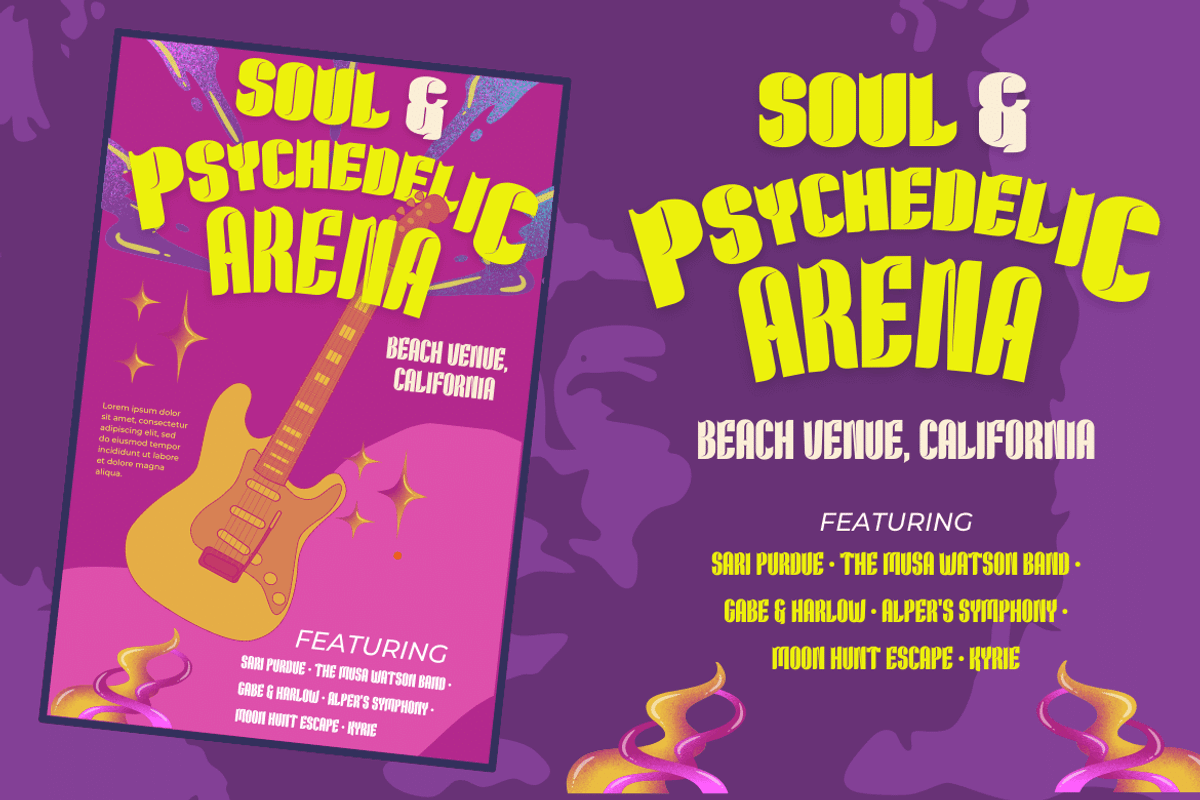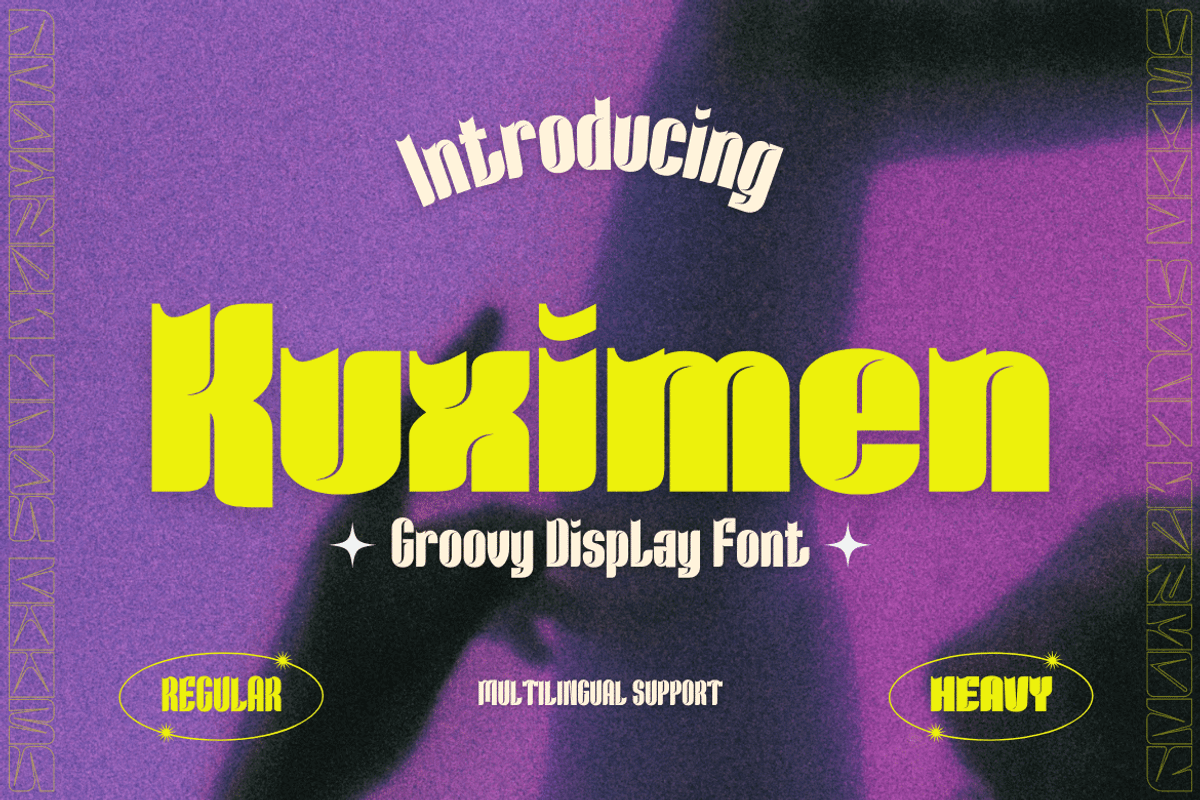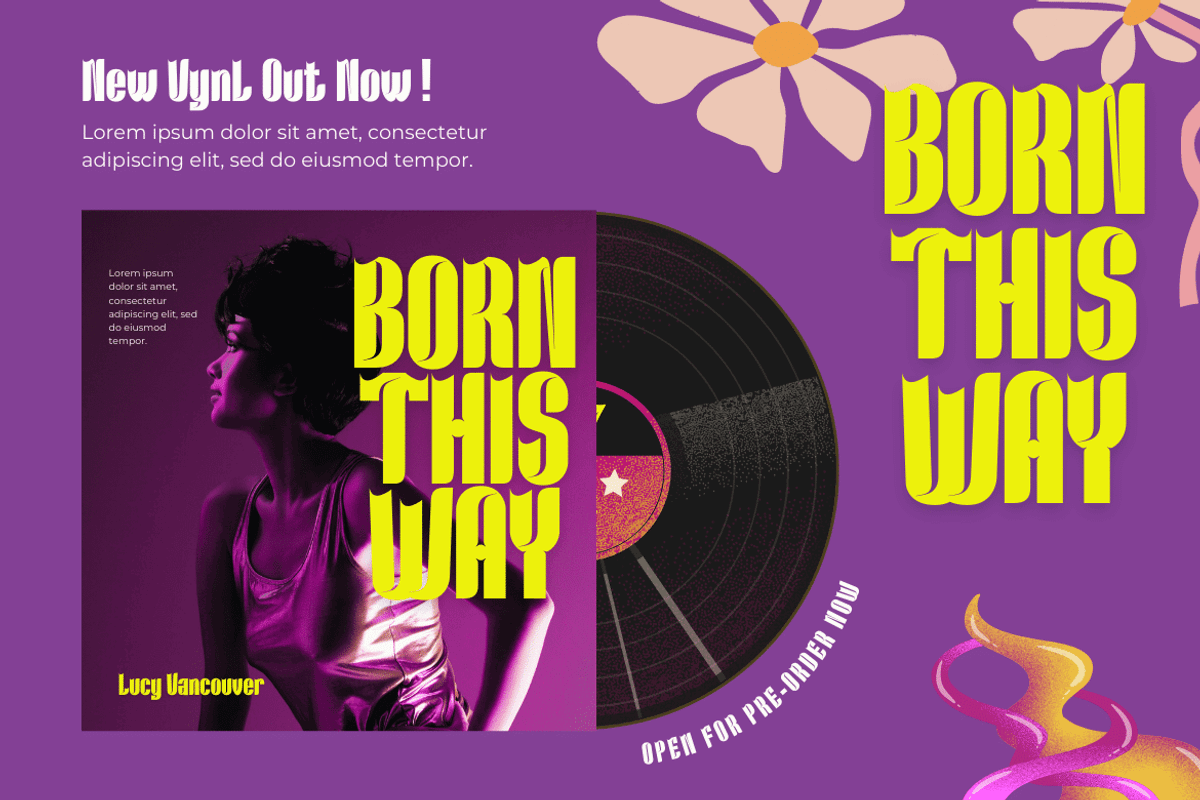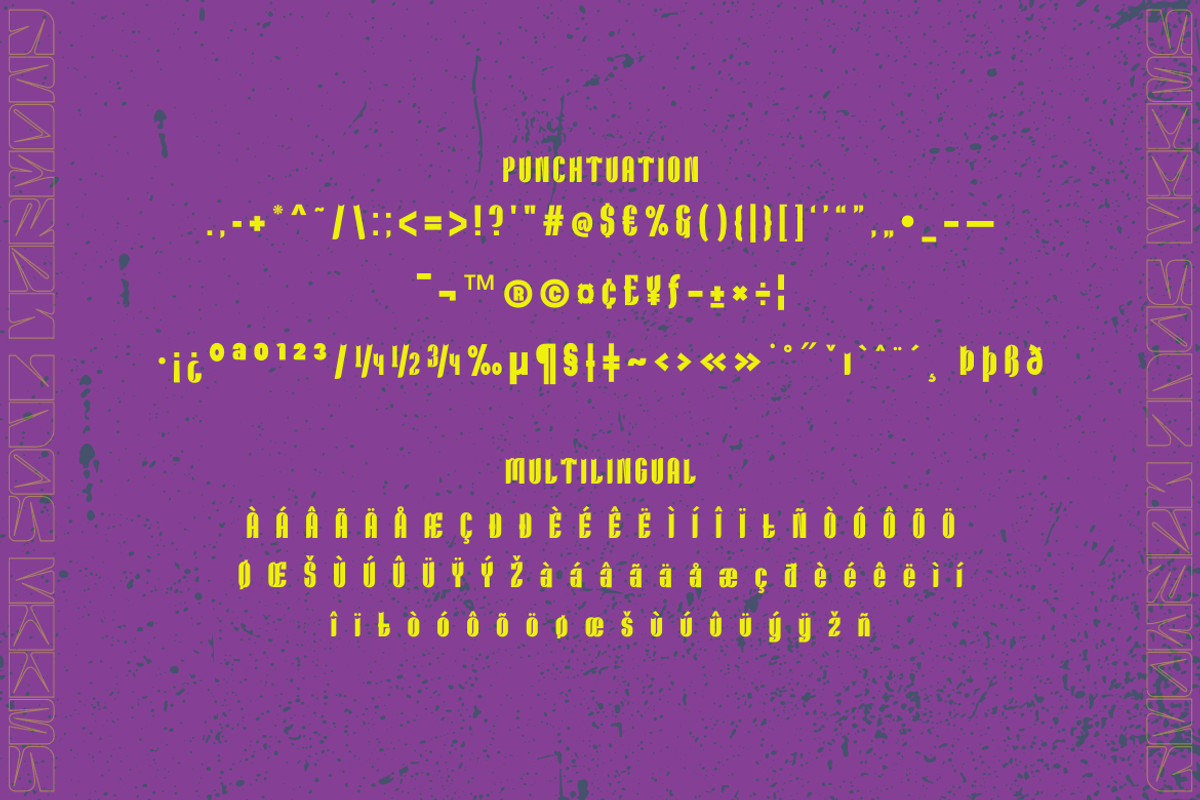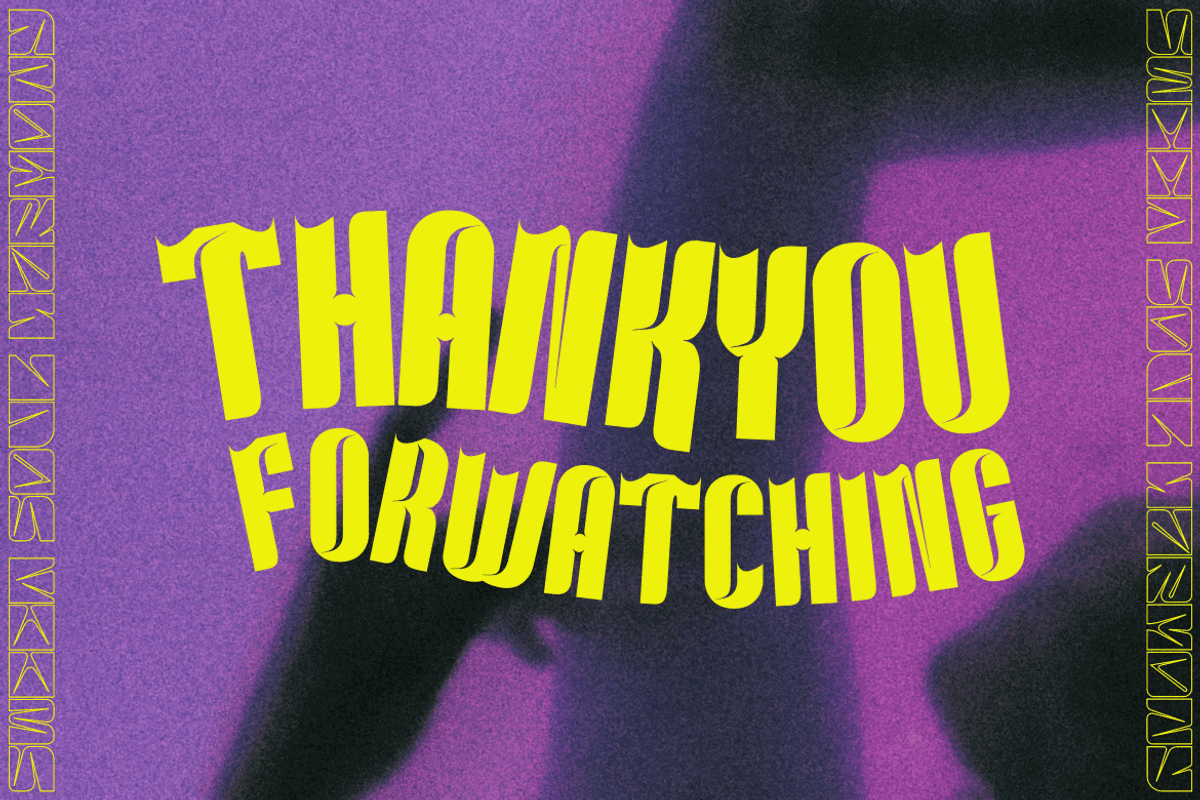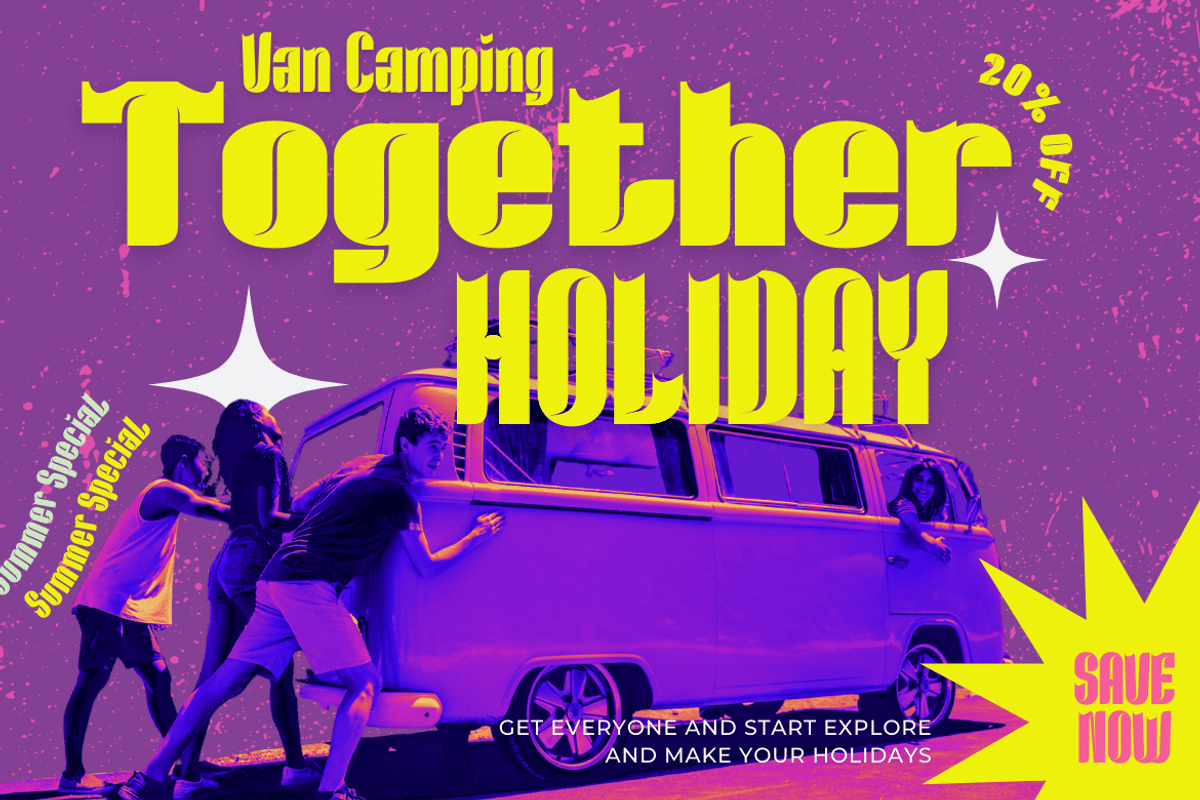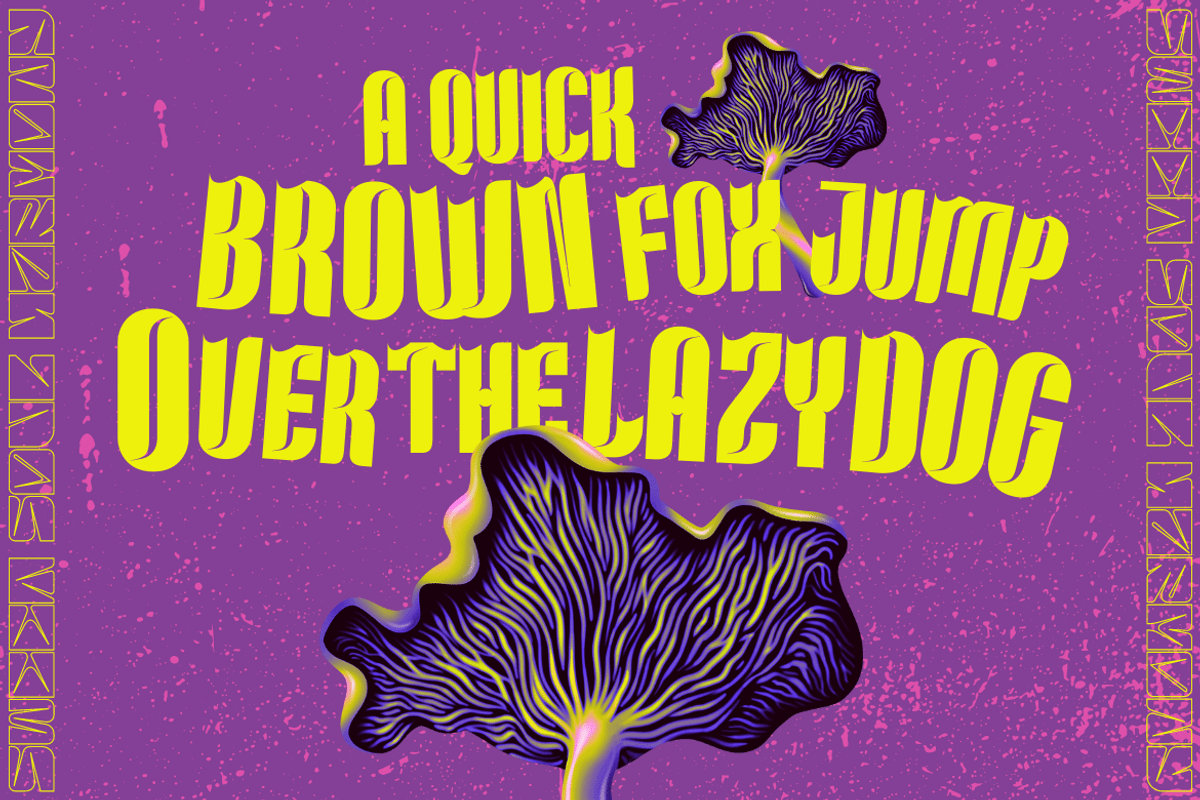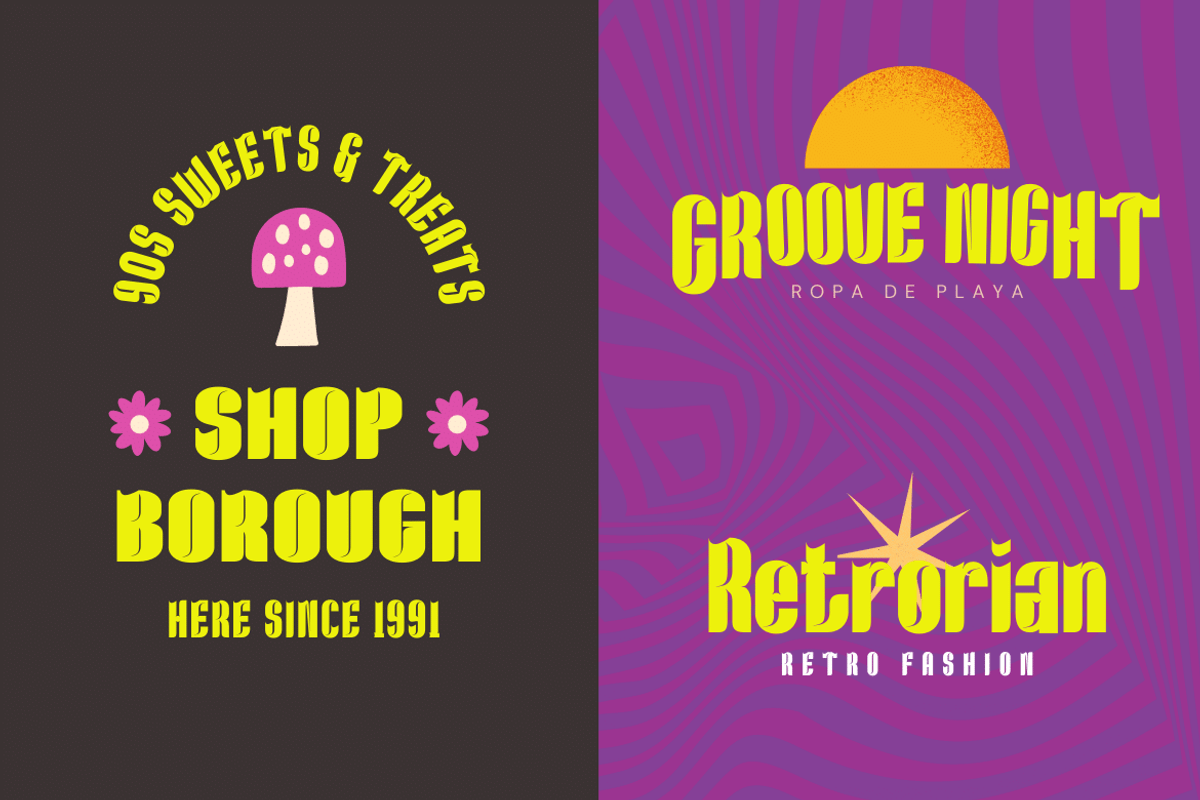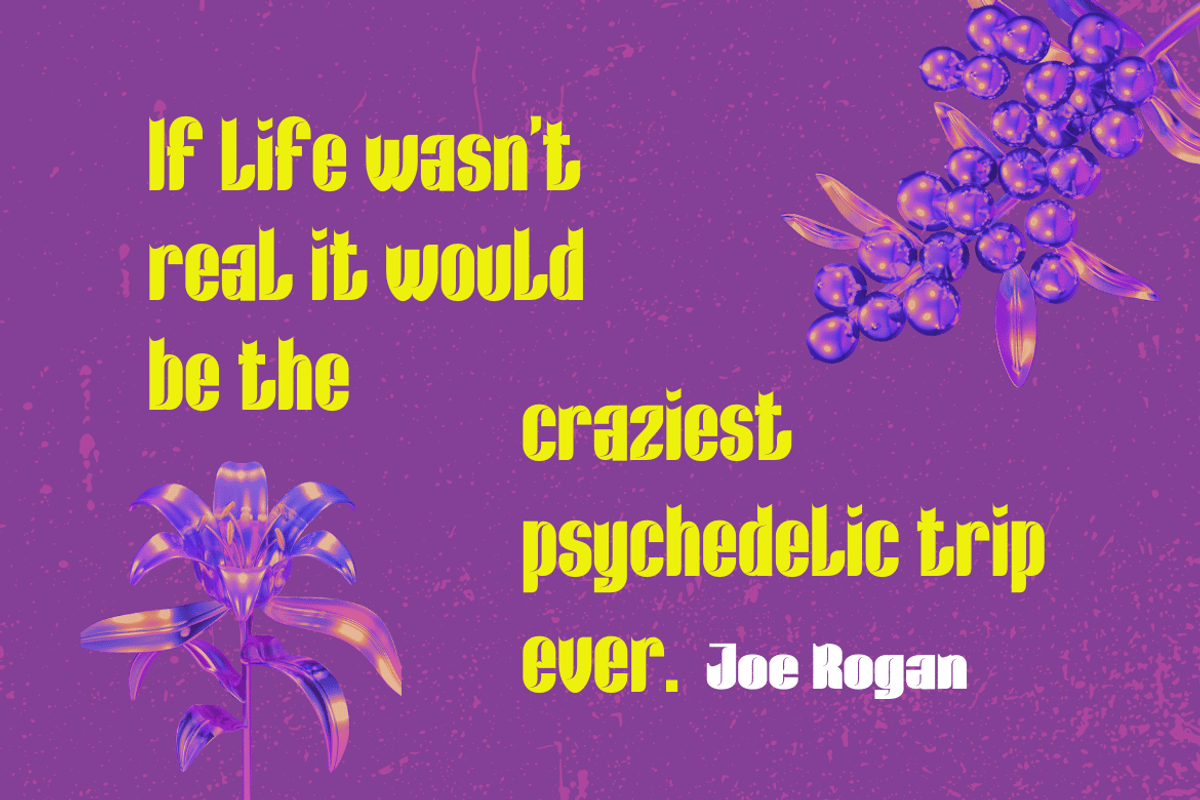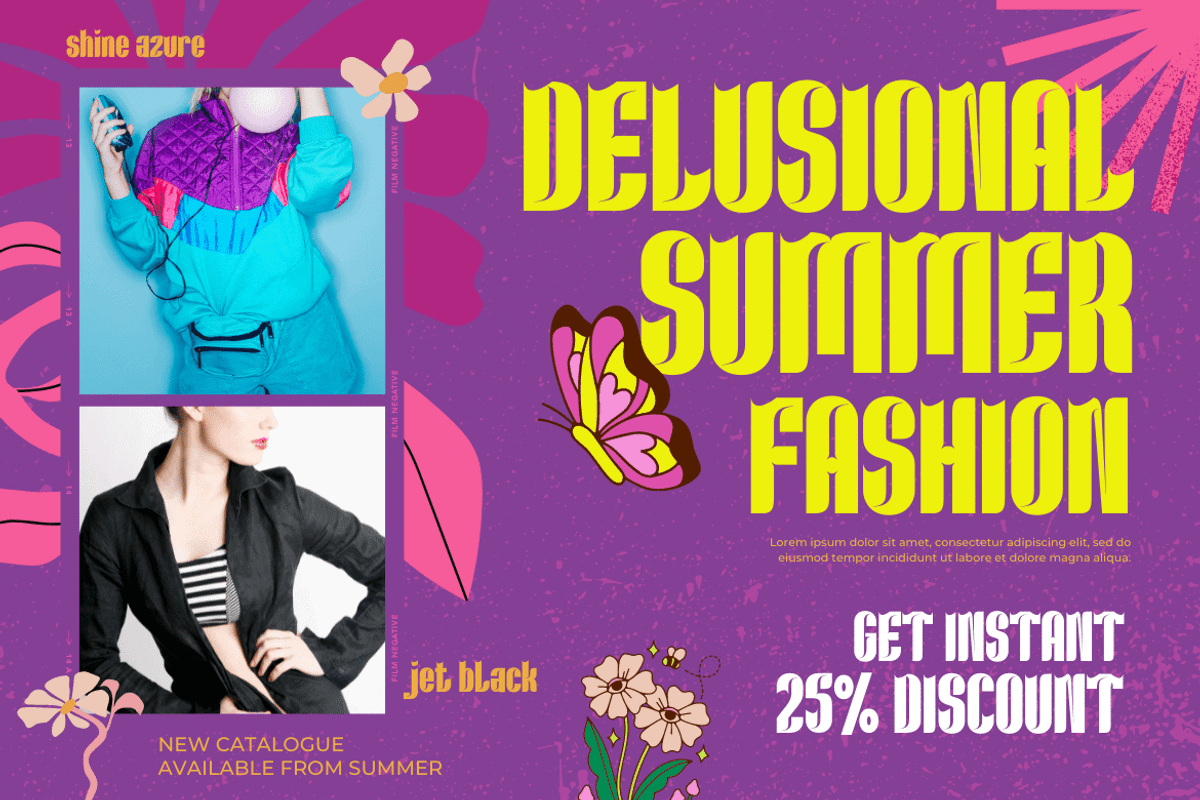
Kuximen | Groovy Retro Font
Kuximen is a groovy display font and is a psychedelic-inspired typeface. Elegant, geometric, and contemporary, this font is the ideal choice for all your projects. With a cool retro vibe and fun character, it can be used in a variety of circumstances either as an elegant or unique addition to your designs. Stop procrastinating and start adding this font to your arsenal right now!